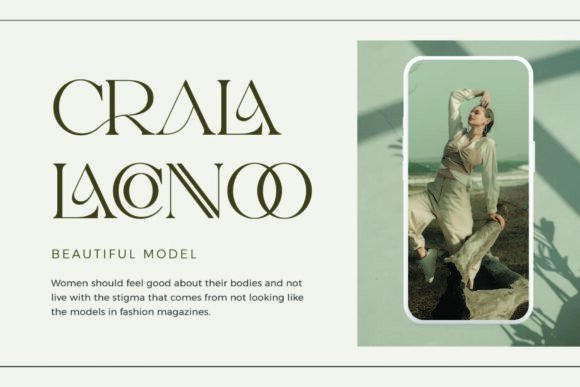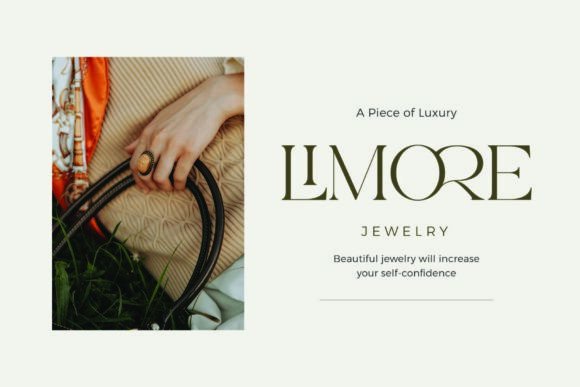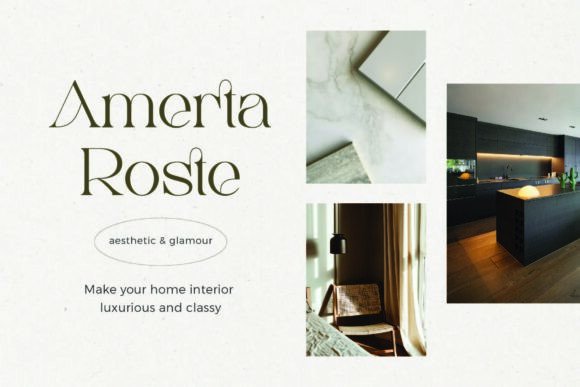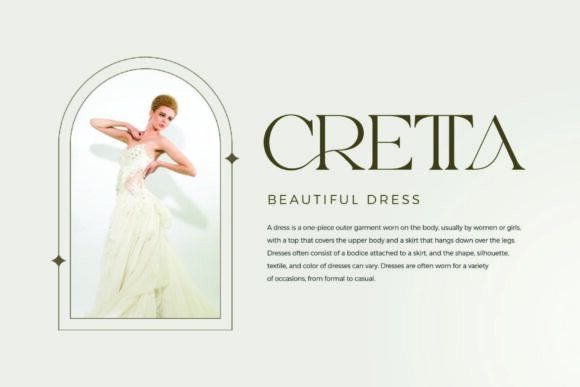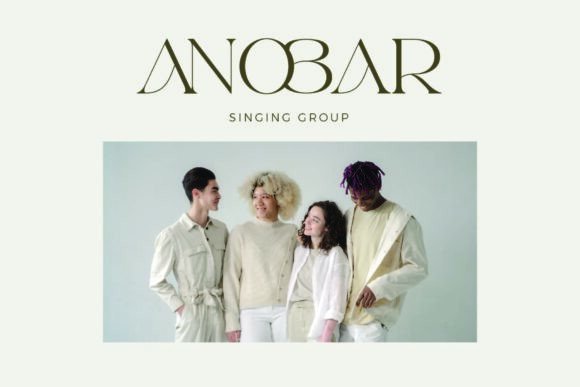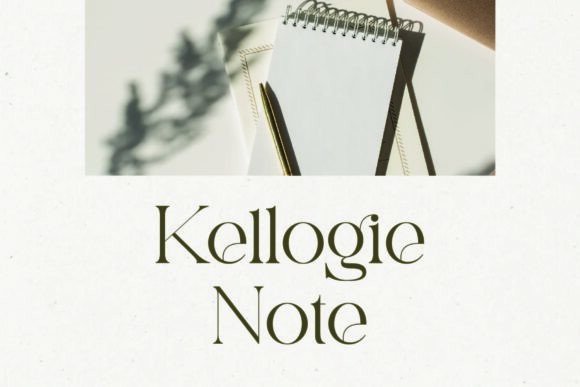
Introducing Amore Font: The Elegant and Bold Serif for Your Creative Projects
Are you looking for a font that exudes elegance and sophistication? Look no further than Amore Font, a stunning serif font that is sure to capture your heart. With its incredibly versatile style, Amore Font is perfect for a wide range of creative projects, from wedding invitations and stationery to social media posts and more.
The Beauty of Amore Font
Amore Font is an elegant and bold serif font that is designed to make a statement. Its classic lines and refined features make it perfect for projects that require a touch of sophistication and glamour. Whether you’re creating wedding invitations, stationery, or social media posts, Amore Font is sure to add a level of elegance and refinement that will leave a lasting impression.
What Makes Amore Font So Versatile?
One of the things that sets Amore Font apart is its incredible versatility. This font can be used for a wide range of projects, from formal wedding invitations to playful social media posts. Its bold and elegant style makes it perfect for headlines, titles, and other display text, while its refined features make it suitable for body text and other written content.
Perfect for Wedding Invitations and Stationery
Amore Font is a popular choice for wedding invitations and stationery, and for good reason. Its elegant and sophisticated style makes it perfect for formal wedding invitations, save-the-date cards, and other wedding-related stationery. Whether you’re looking for a classic and traditional look or something more modern and playful, Amore Font is sure to deliver.
Create Eye-Catching Social Media Posts
Amore Font is not just limited to print projects. Its bold and elegant style makes it perfect for social media posts, including Facebook, Instagram, Twitter, and more. Use Amore Font to create eye-catching headlines, titles, and other display text that will grab the attention of your followers and leave a lasting impression.
Why Designers and Crafters Love Amore Font
Designers and crafters love Amore Font for its versatility, elegance, and sophistication. This font is easy to use and pairs well with a wide range of other fonts and design elements. Whether you’re creating wedding invitations, stationery, social media posts, or other creative projects, Amore Font is sure to become a favorite in your design arsenal.
Key Features of Amore Font
- Elegant and bold serif font
- Incredibly versatile style
- Perfect for wedding invitations, stationery, and social media posts
- Classic lines and refined features
- Easy to use and pairs well with other fonts and design elements
Get Ready to Fall in Love with Amore Font
If you’re looking for a font that will add a touch of elegance and sophistication to your creative projects, look no further than Amore Font. With its incredibly versatile style and classic lines, Amore Font is sure to capture your heart and become a favorite in your design arsenal. So why wait? Fall in love with Amore Font today and start creating stunning creative projects that will leave a lasting impression.
In conclusion, Amore Font is a stunning serif font that is perfect for a wide range of creative projects. Its elegant and bold style makes it perfect for wedding invitations, stationery, social media posts, and more. With its incredibly versatile style and classic lines, Amore Font is sure to become a favorite among designers and crafters. So why wait? Get Amore Font today and start creating beautiful and elegant creative projects that will leave a lasting impression.